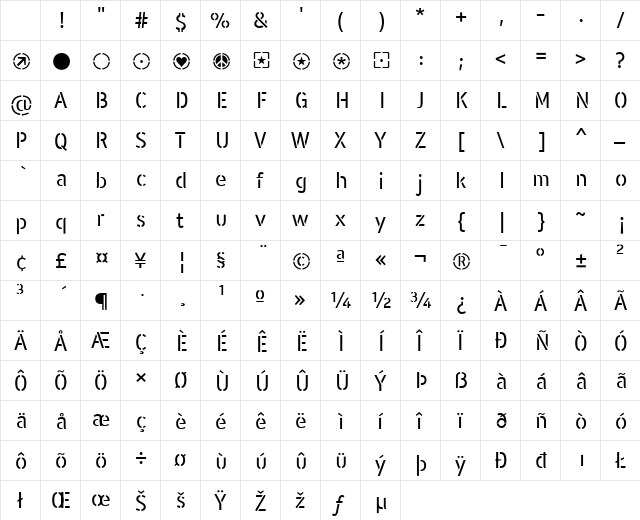
Complete WARFIELD Regular glyph index. Displaying only characters natively supported by WARFIELD Regular font.
WARFIELD is a composed and adaptable typeface that performs quietly and consistently across a wide range of design contexts.
Pro Tip: Use WARFIELD in both headline and body roles to test its range before committing to a single application.